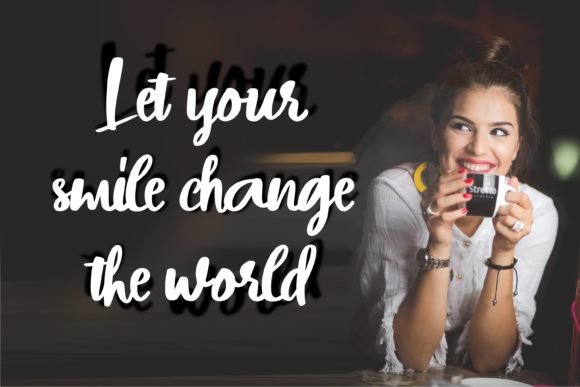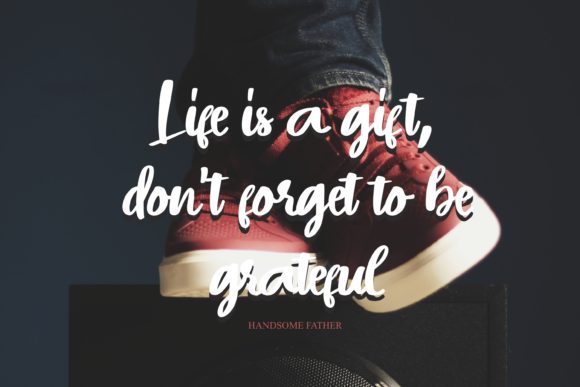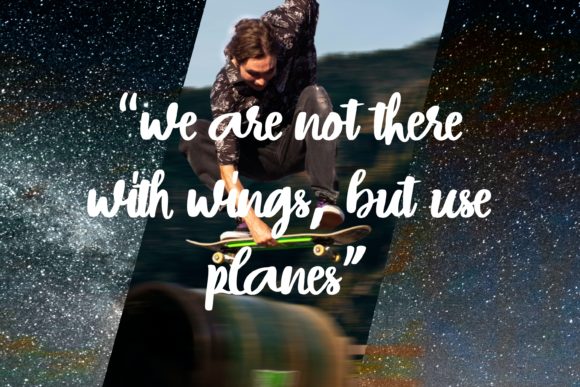
Introduction to Relaxme Font
Imagine yourself in a quiet corner of your favorite coffee shop, surrounded by half-finished craft projects and scraps of paper with handwritten notes. You’re on the verge of a creative breakthrough, and the perfect font is just what you need to bring your vision to life. That’s where the Relaxme Font comes in – a fun and trendy handwritten font that’s sure to add a personal touch to your next project.
As a valuable design resource, the Relaxme Font is perfect for anyone looking to add a unique and high-quality element to their creative project. Whether you’re a seasoned designer or a hobbyist looking for a free download, this font is sure to impress. With its transparent background and elegant script, the Relaxme Font is the perfect choice for stationery, letterheads, and more.
Key Features of Relaxme Font
- High-quality design resource perfect for creative projects, offering a unique and relaxing atmosphere.
- Features a transparent background, allowing for seamless integration into various design elements and backgrounds.
- Includes a range of font sizes, from 12pt to 72pt, catering to different design needs and requirements.
- Resolution-independent, ensuring crisp and clear typography across various devices and display resolutions.
- Designed to evoke a sense of calmness and serenity, making it an ideal choice for branding, packaging, and other creative projects.
- Perfect for designers seeking a high-quality, free design resource that can add a touch of elegance and sophistication to their work.
Honest Review: Relaxme Font
I recently stumbled upon the Relaxme Font, and I must say it’s a great addition to my design resources. As a designer, I’m always on the lookout for high-quality fonts that can elevate my creative projects.
The Relaxme Font is a free download, which is a huge plus. I love that I can experiment with it without committing to a purchase. The font itself is quite versatile, with a modern and elegant feel that works well for both digital and print designs.
- High-quality design: The Relaxme Font has a sleek and refined look that’s perfect for creative projects.
- Transparent background: This makes it easy to layer the font with other design elements.
- Limited character set: The Relaxme Font only includes a limited range of characters, which might be a issue for designers who need to use special characters or languages.
- No bold or italic variants: While the font is elegant, it would be great to have bold or italic variants to add some visual interest.
Overall, I’m impressed with the Relaxme Font. While it has some limitations, its high-quality design and free download make it a great addition to any design resource library.
Tips for Getting the Most Out of Relaxme Font
Experiment with different font sizes and styles to create visual interest in your design. Use the transparent background feature to make your text stand out. Combine the Relaxme Font with other design elements to create a unique and eye-catching look.
The Relaxme Font is ideal for creative projects such as branding, marketing materials, and social media graphics. Its high-quality design and transparent background make it perfect for use in a variety of contexts.